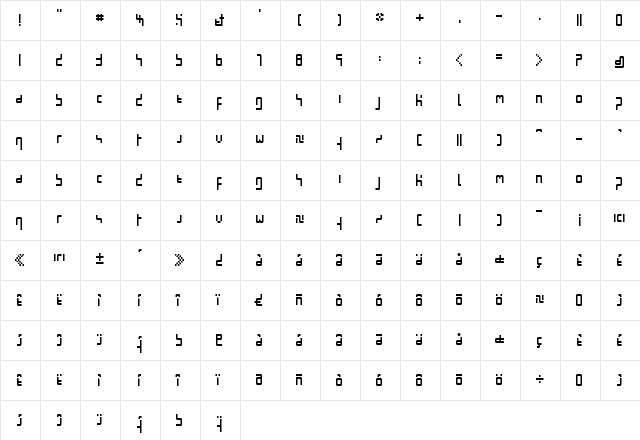
minimal-pixel Regular
Designer: Fabr?cio Alves
Design Context for minimal-pixel
minimal-pixel is rooted in pixel-grid construction, making it a natural fit for game UI, retro computing aesthetics, and digital nostalgia projects.